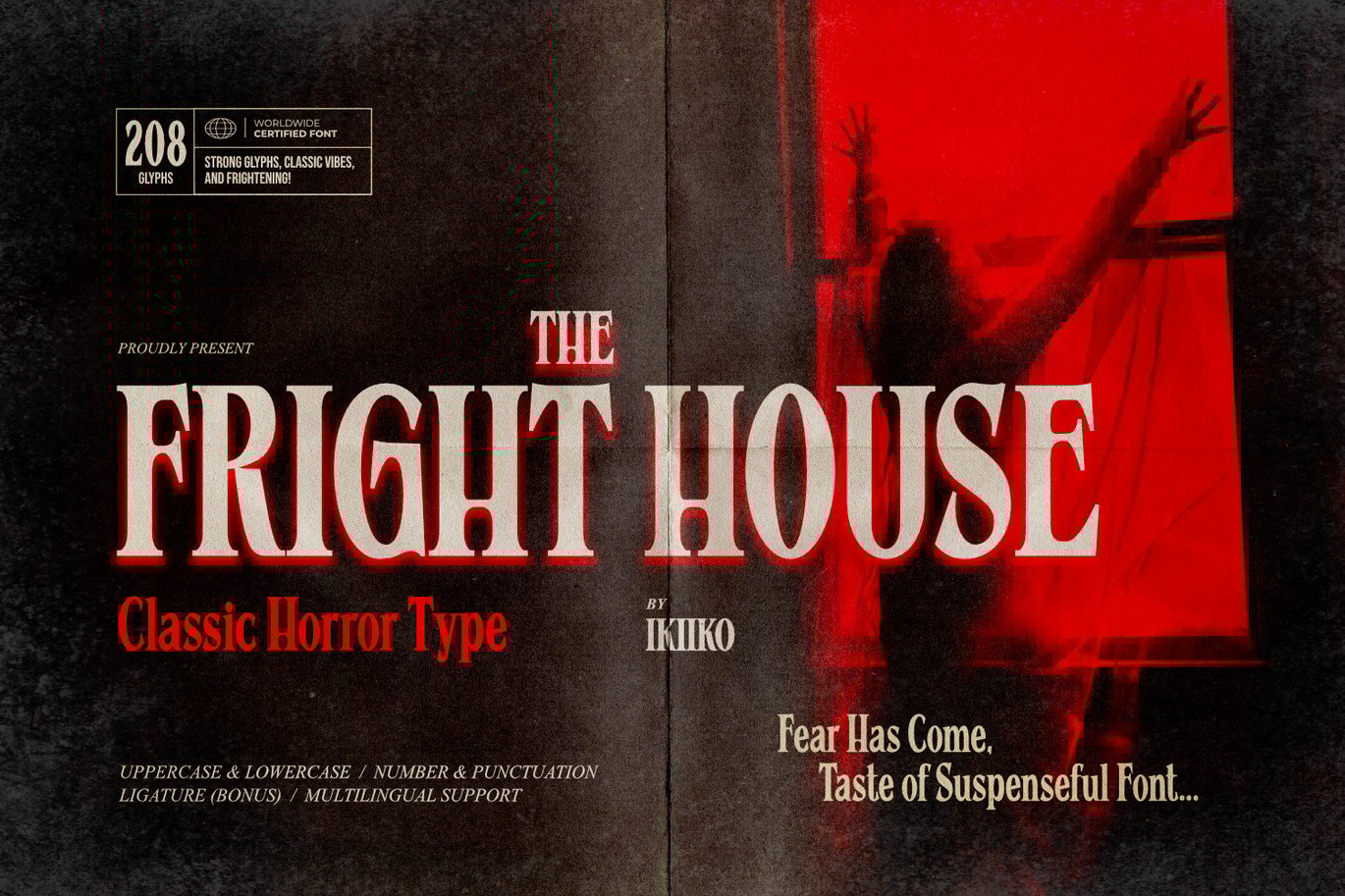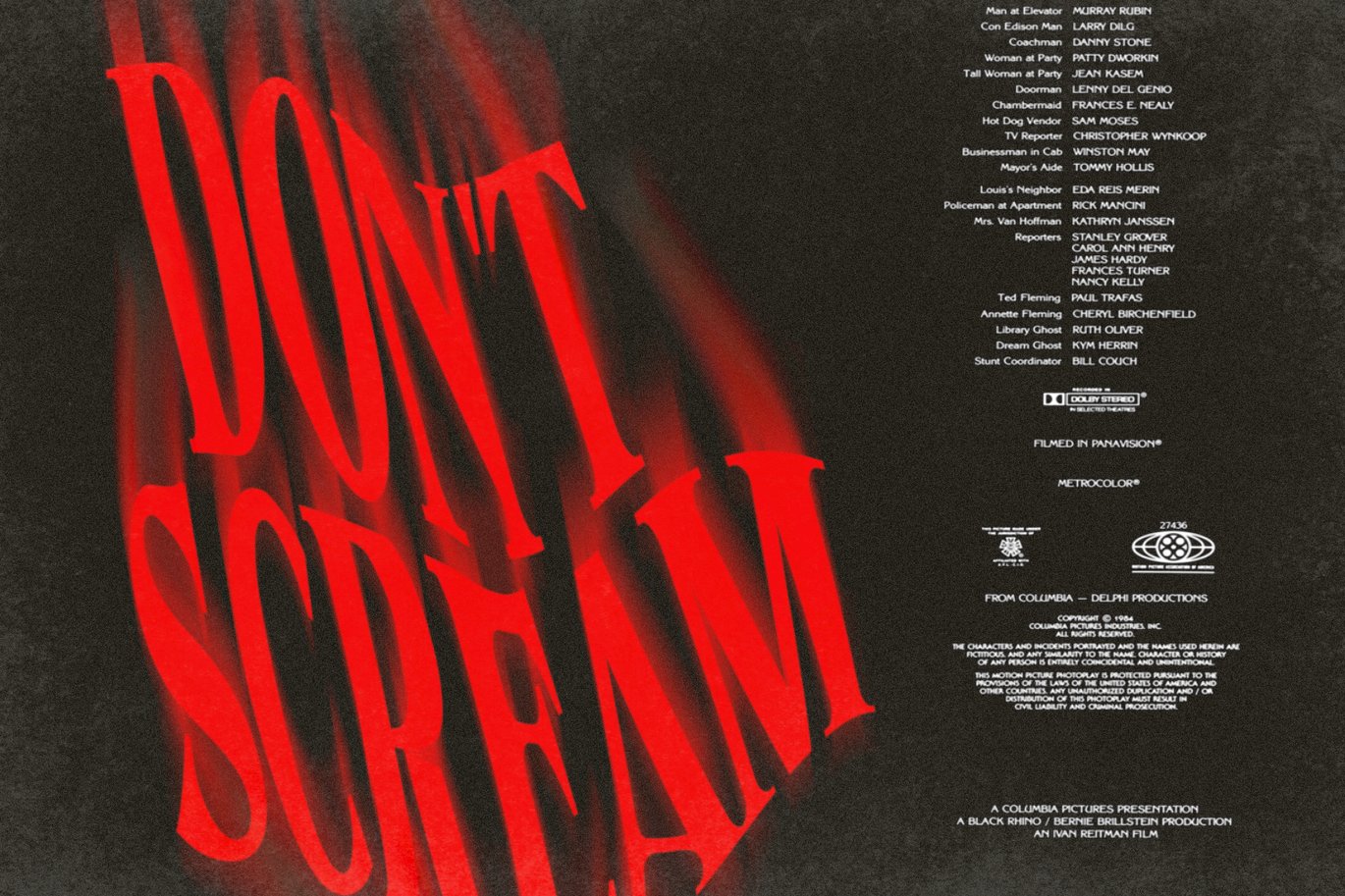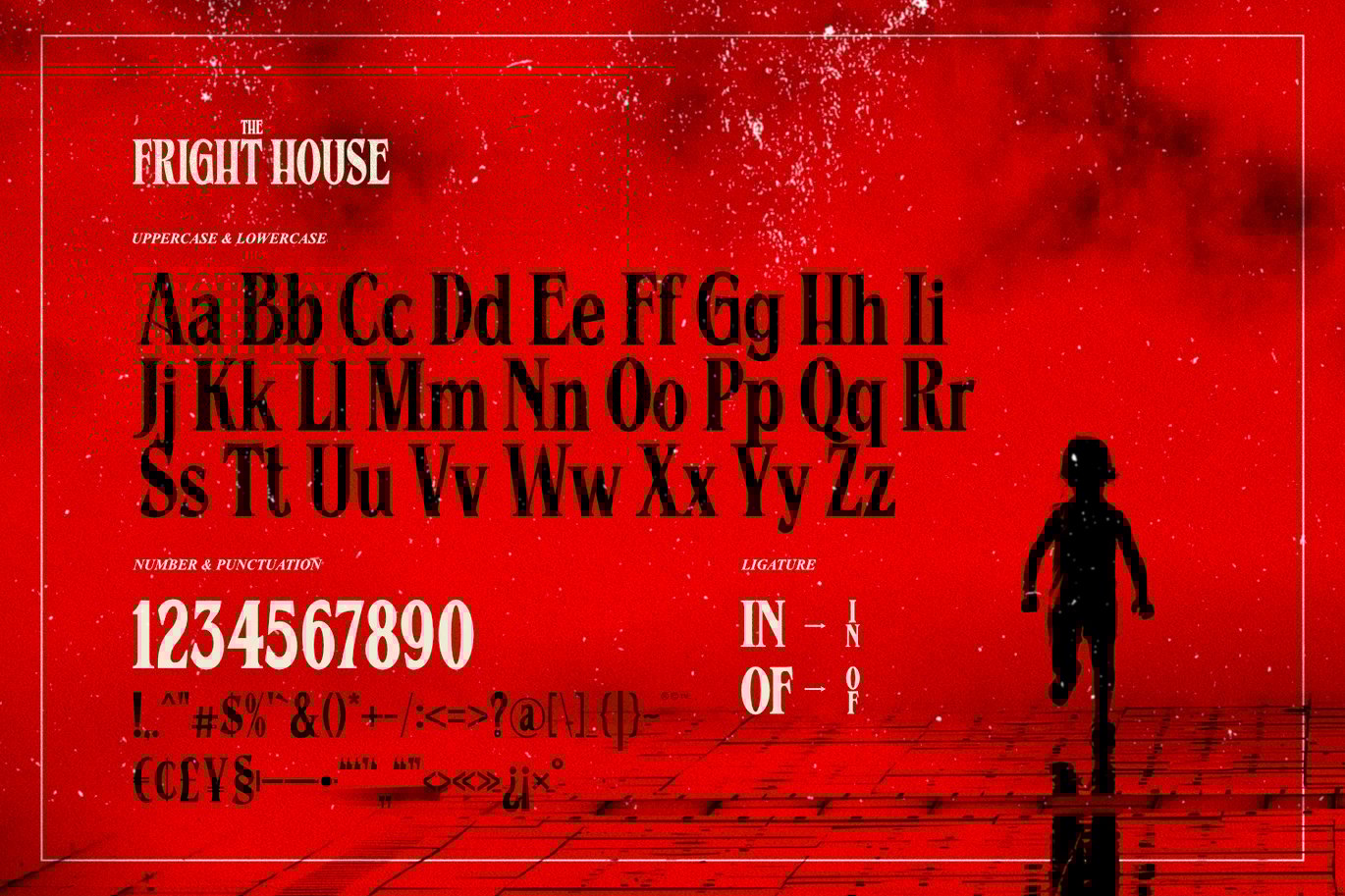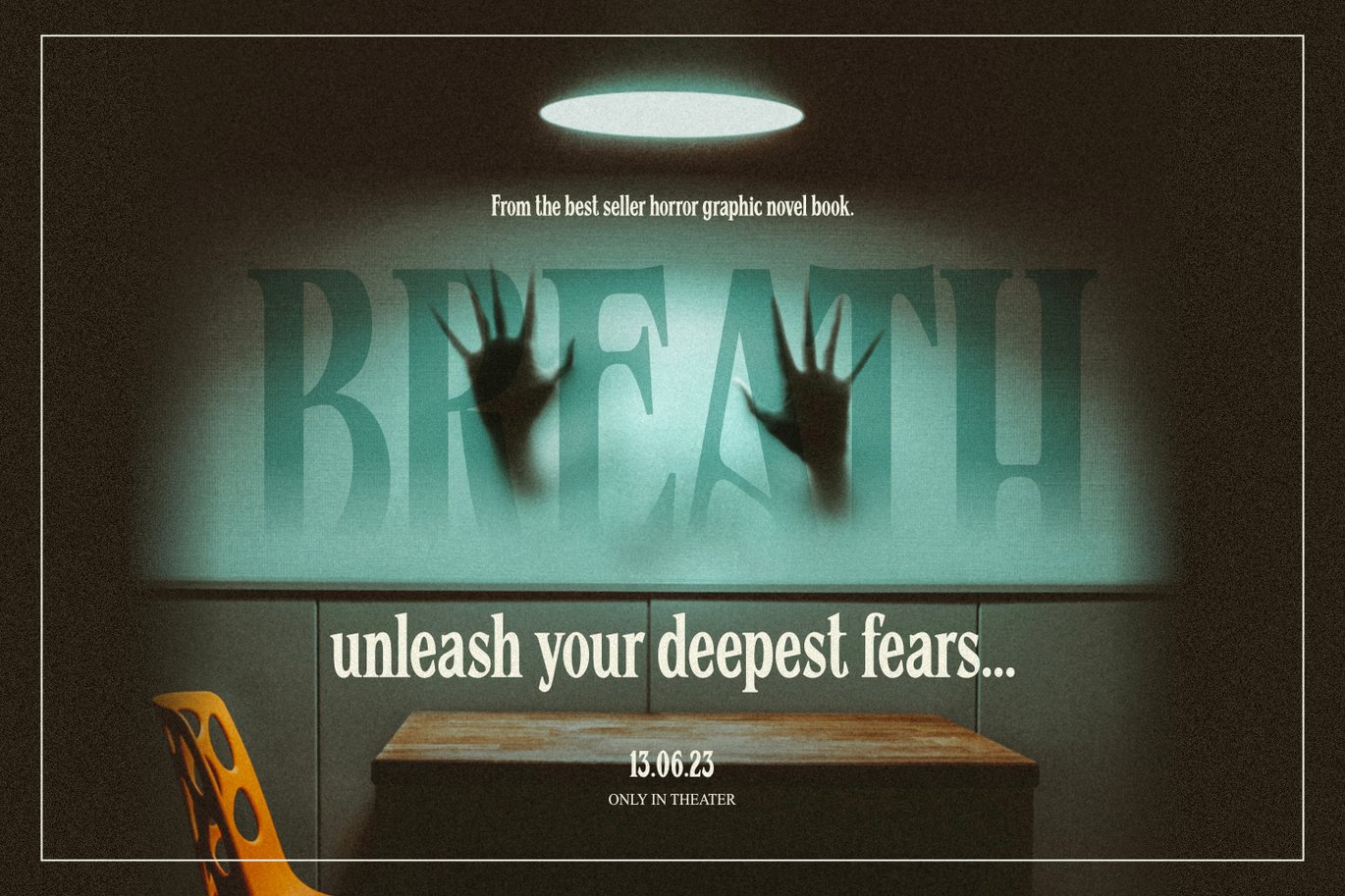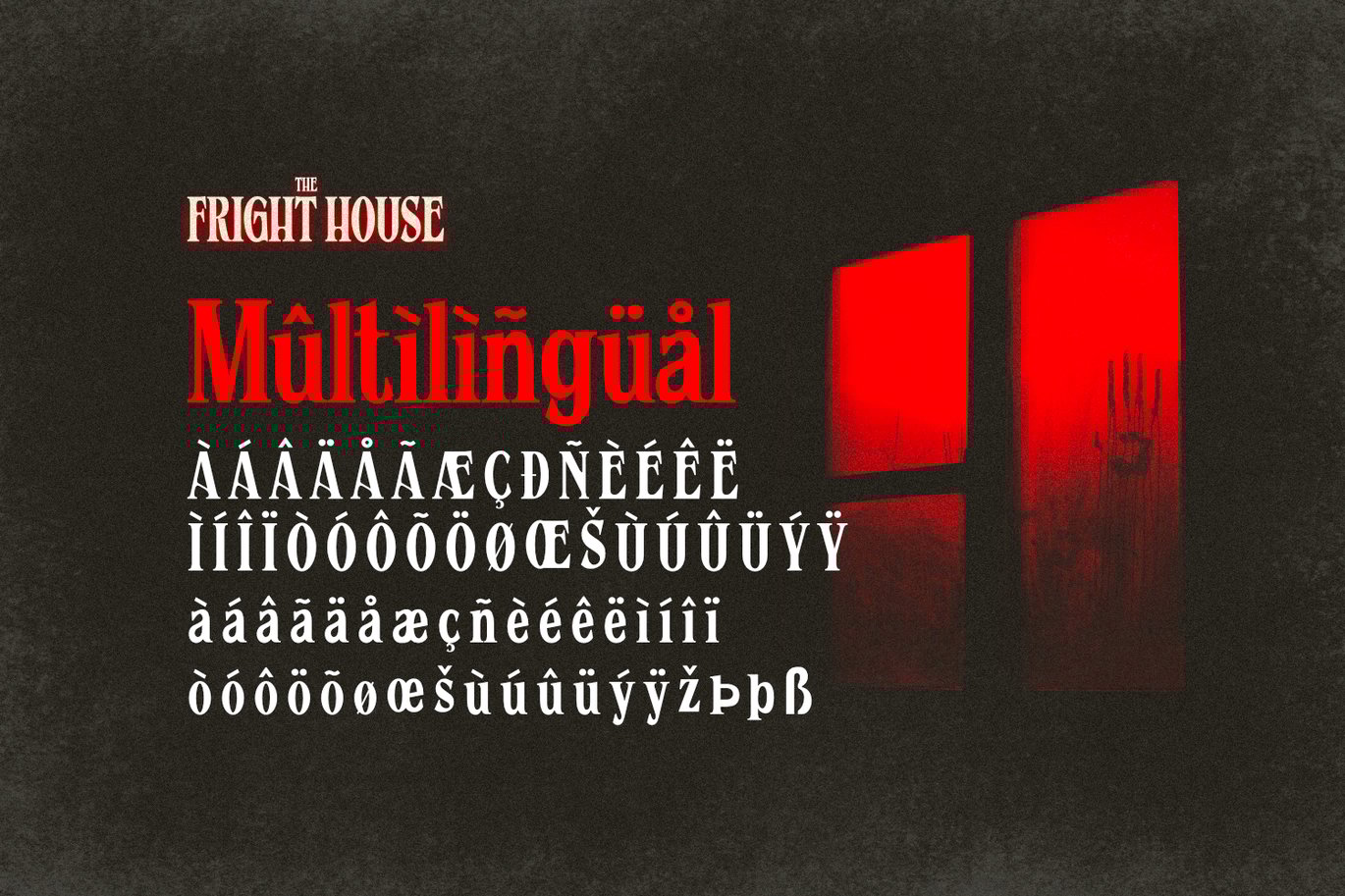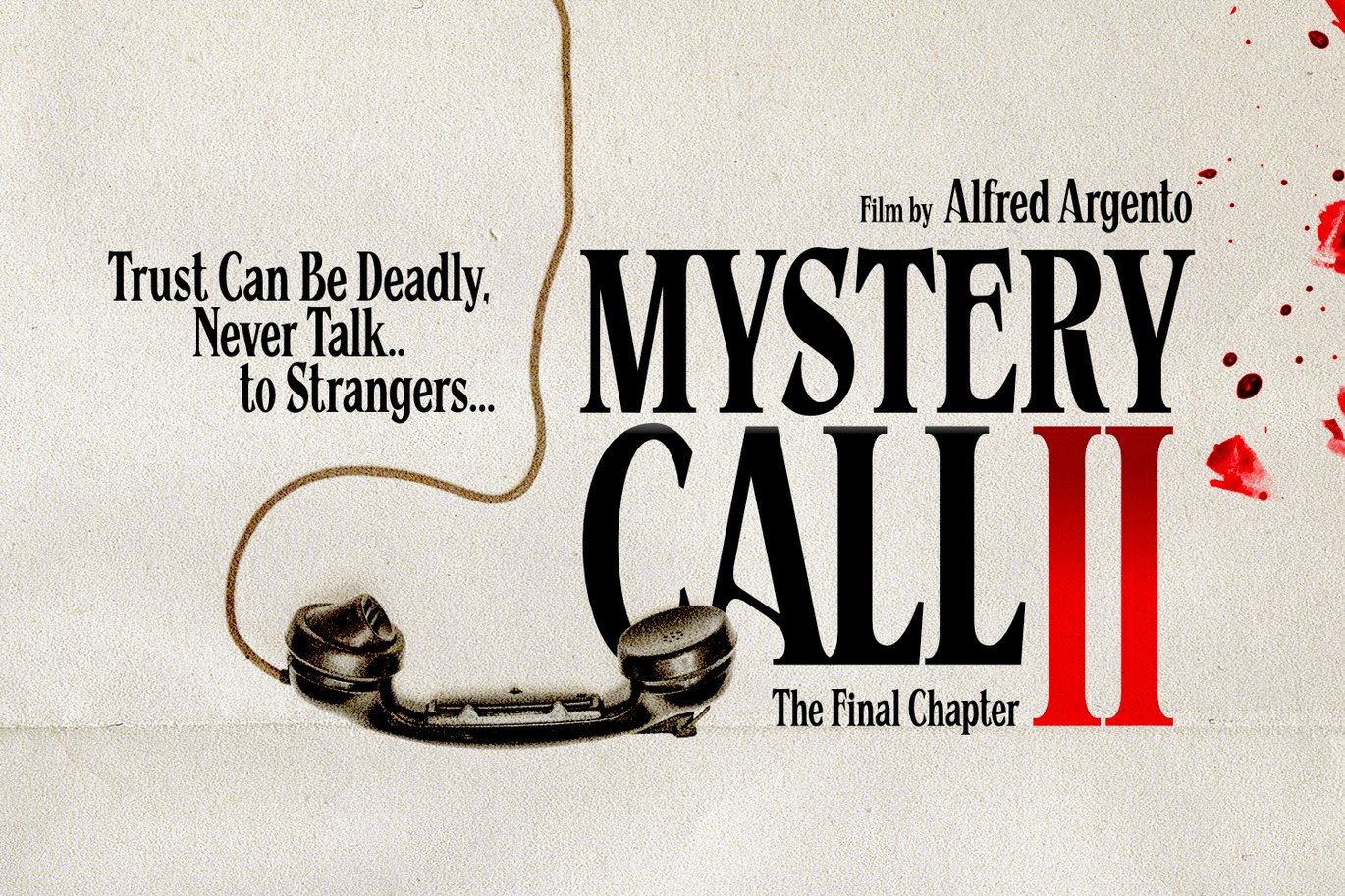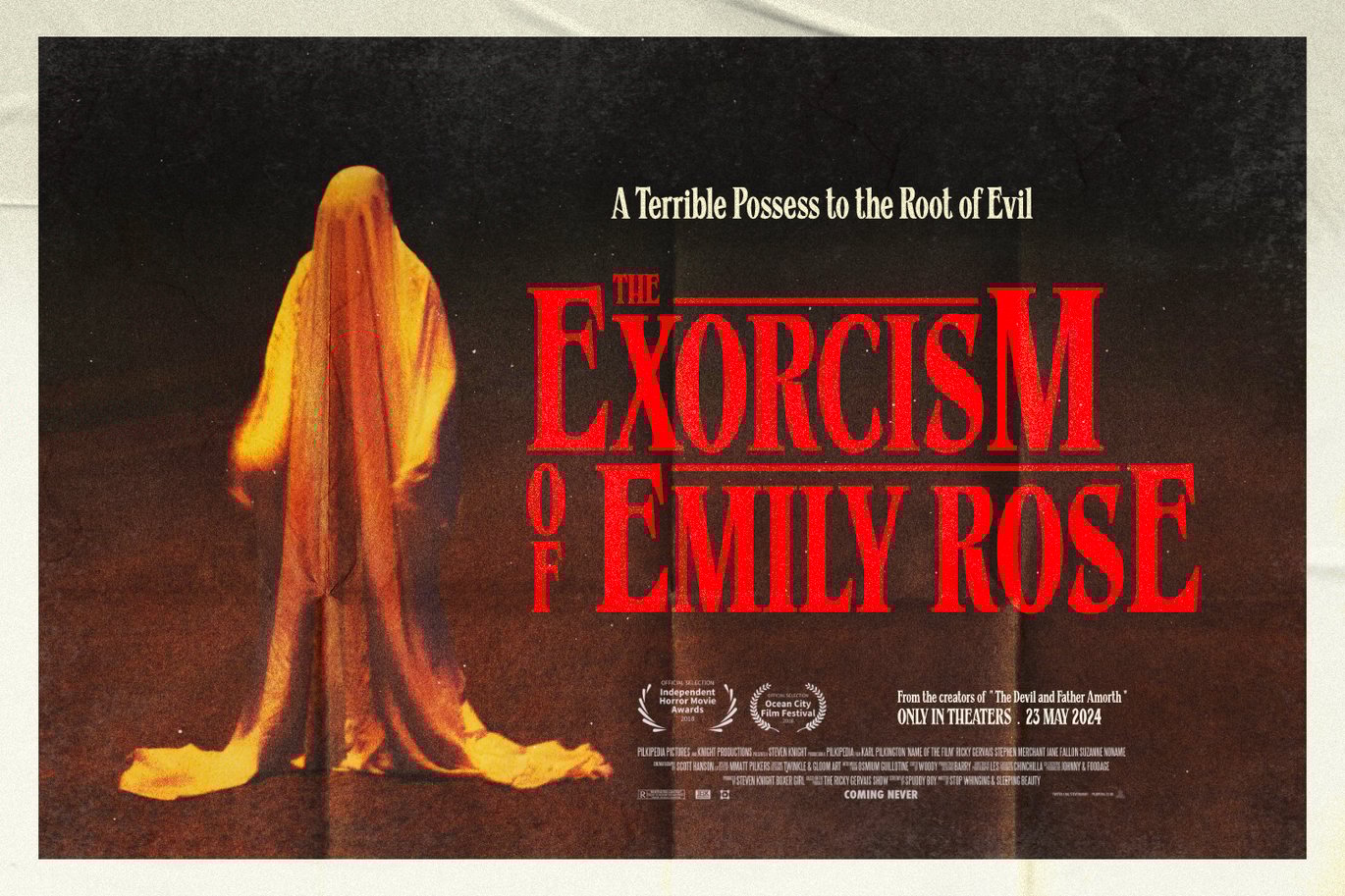
The Fright House – Classic Horror Font
Proudly Present The Fright House – Classic Horror Font, created by ikiiko.
Inspired by classic horror movie posters, The Fright House, with its retro appeal and traditional serif styling, revives the spirit of horror from the 1970s. The nostalgia and appeal of a past of dread is captured by this typeface, which pays homage to the typefaces that covered horror novels, movie posters, and spooky magazines during that time.
The Fright House is a classic elongated condensed serif typeface with a timeless elegance inspired by 1970s fonts. With a precisely defined serif that gives it a sharp and unsettling feel. Each character has graceful contours and precise proportions, seamlessly blending vintage design with the thrilling charm of suspense.
This typeface is perfect for an vintage poster, movie title, classic stuff, magazine layout, book cover, and also good for quotes, or simply as a stylish text overlay to any background image.